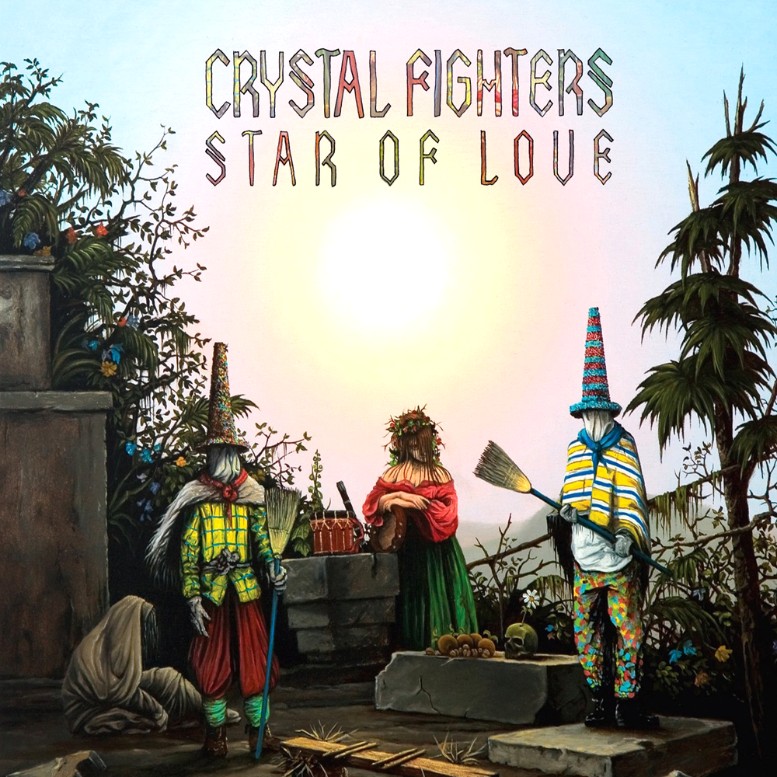
Star of Love (Crystal Fighters) Font
ElectronicCrystal Fighters, a London-based English electronic/folk band, was formed in 2007. Their debut studio album, "Star of Love," was released on October 4th, 2010 and the title track, also named "Star of Love," served as the lead single from the album.
The album cover art showcases the Monotype Basque font. This elegant 19th century font has an angular look, reminiscent of Blackletter scripts.